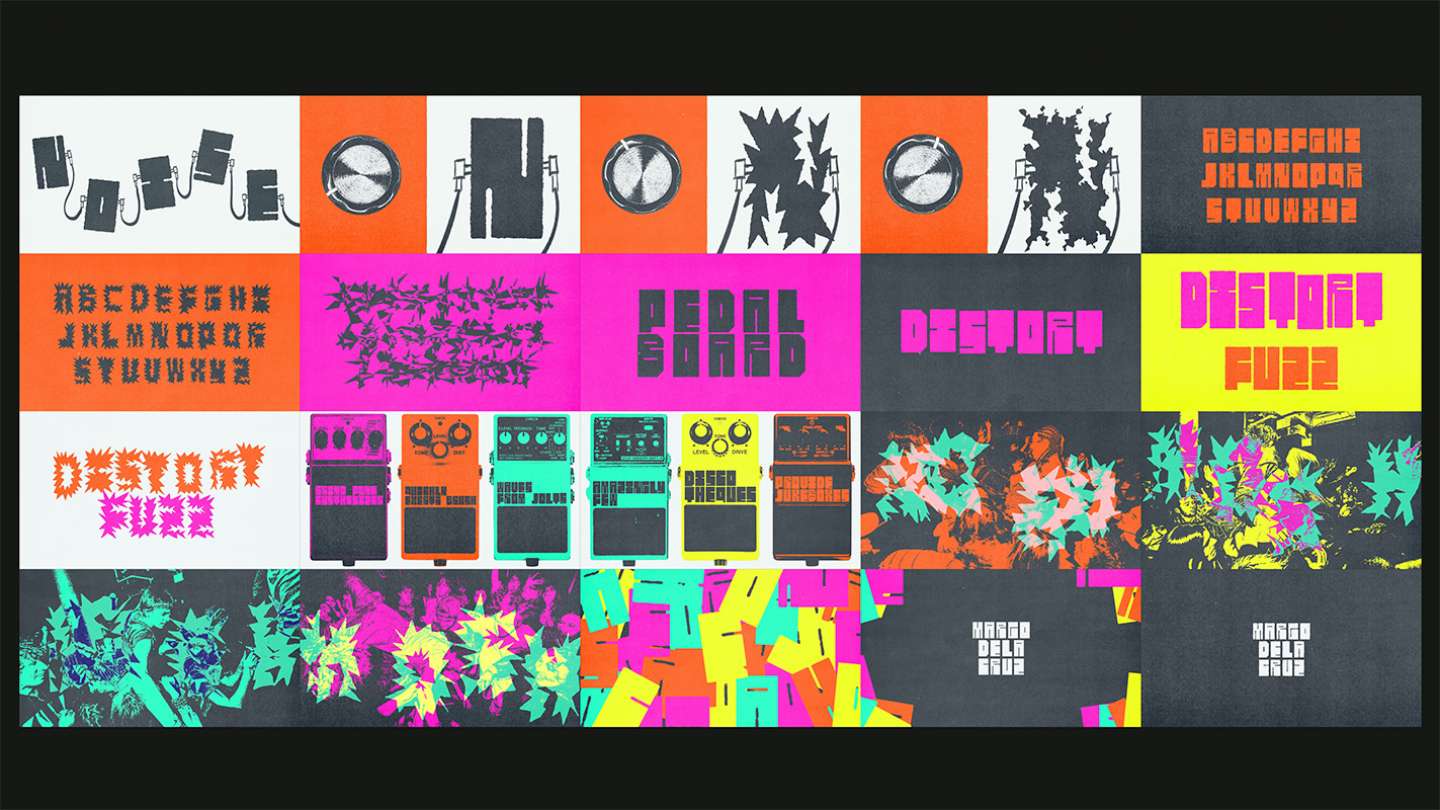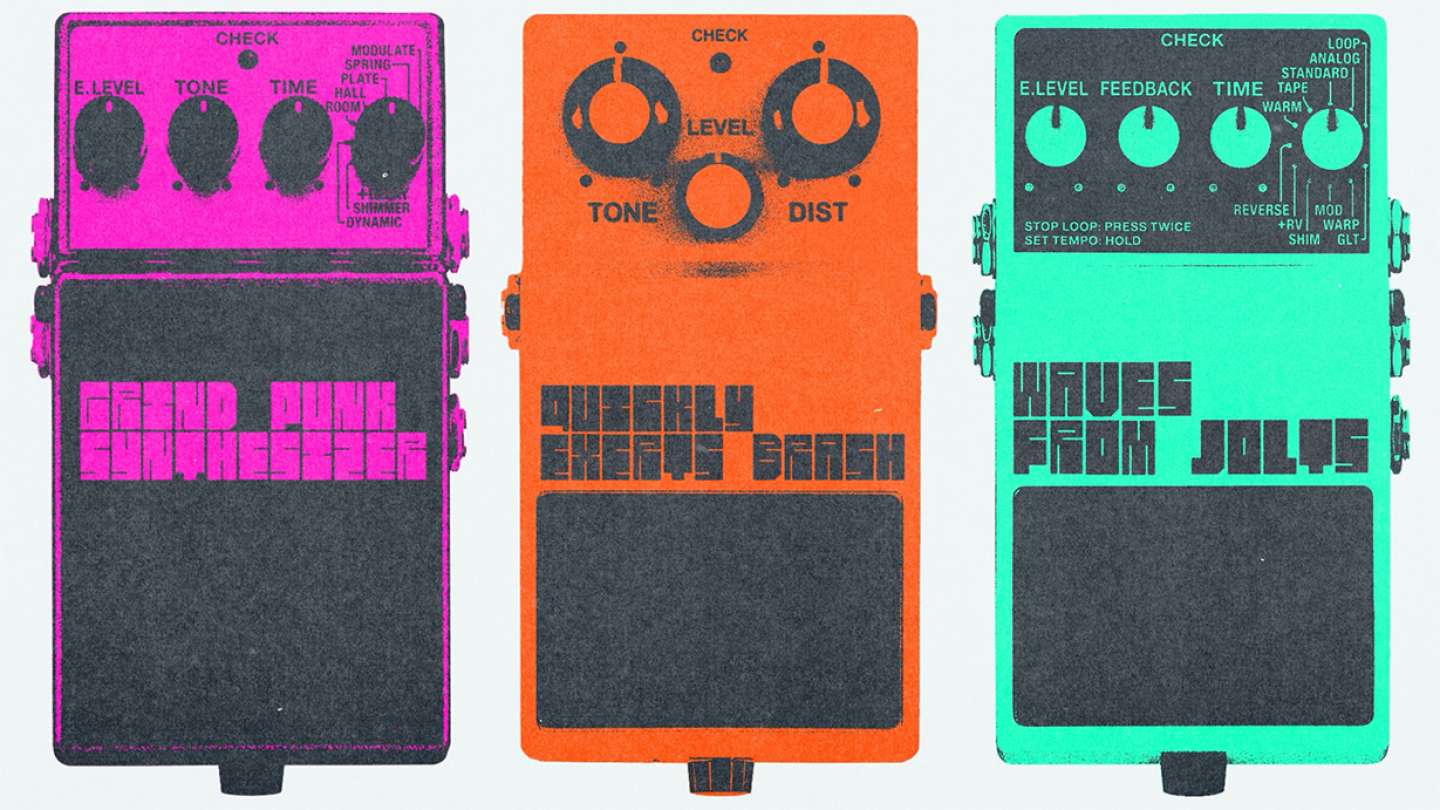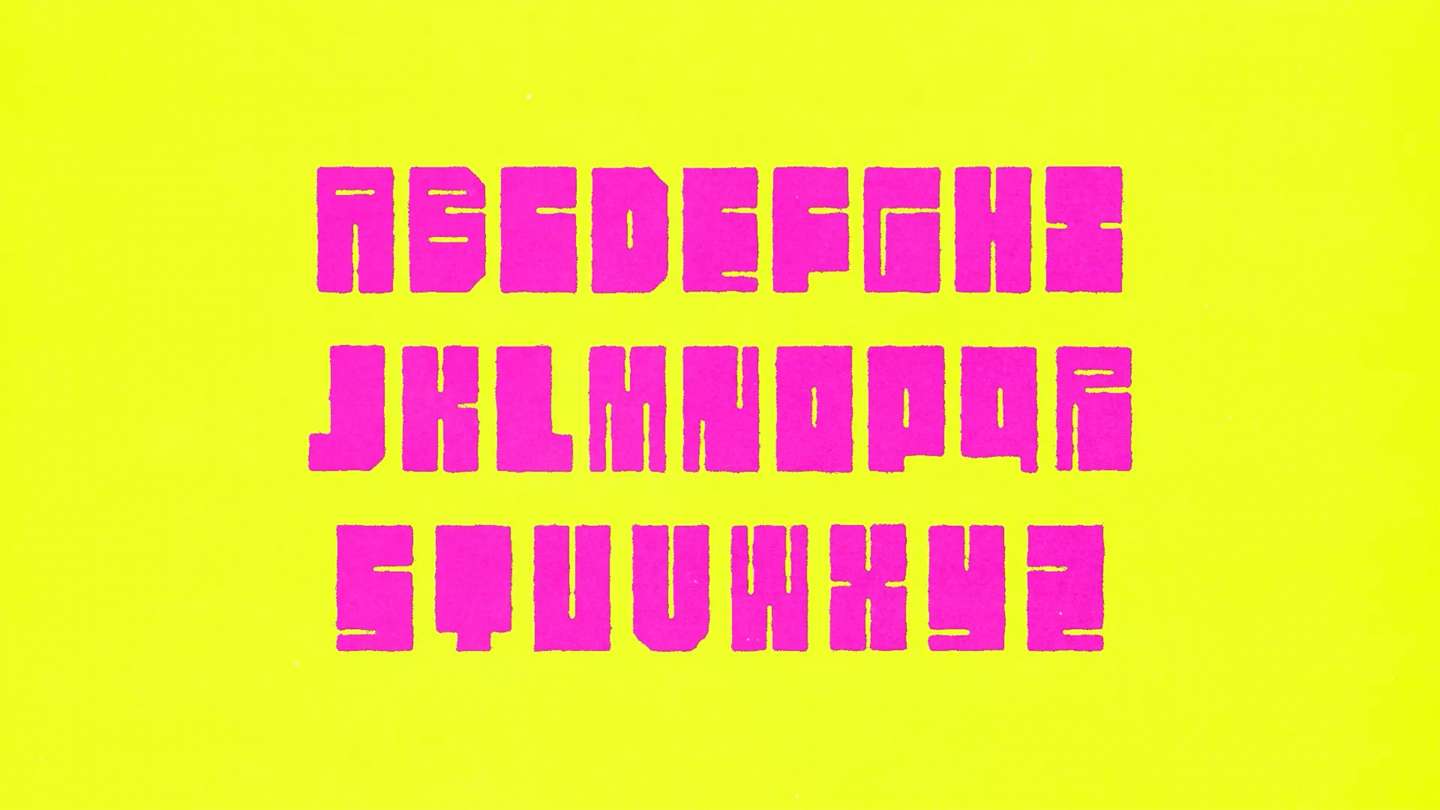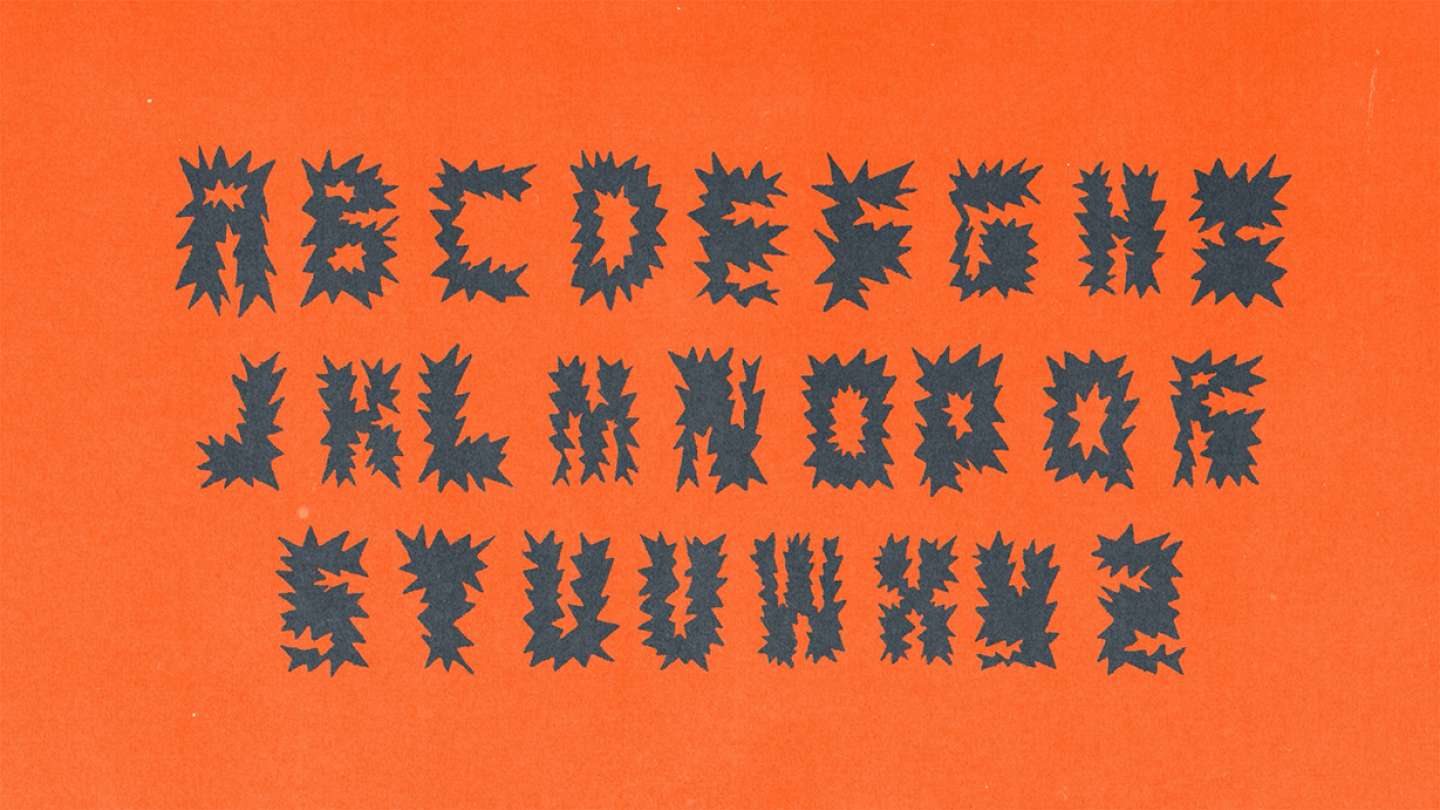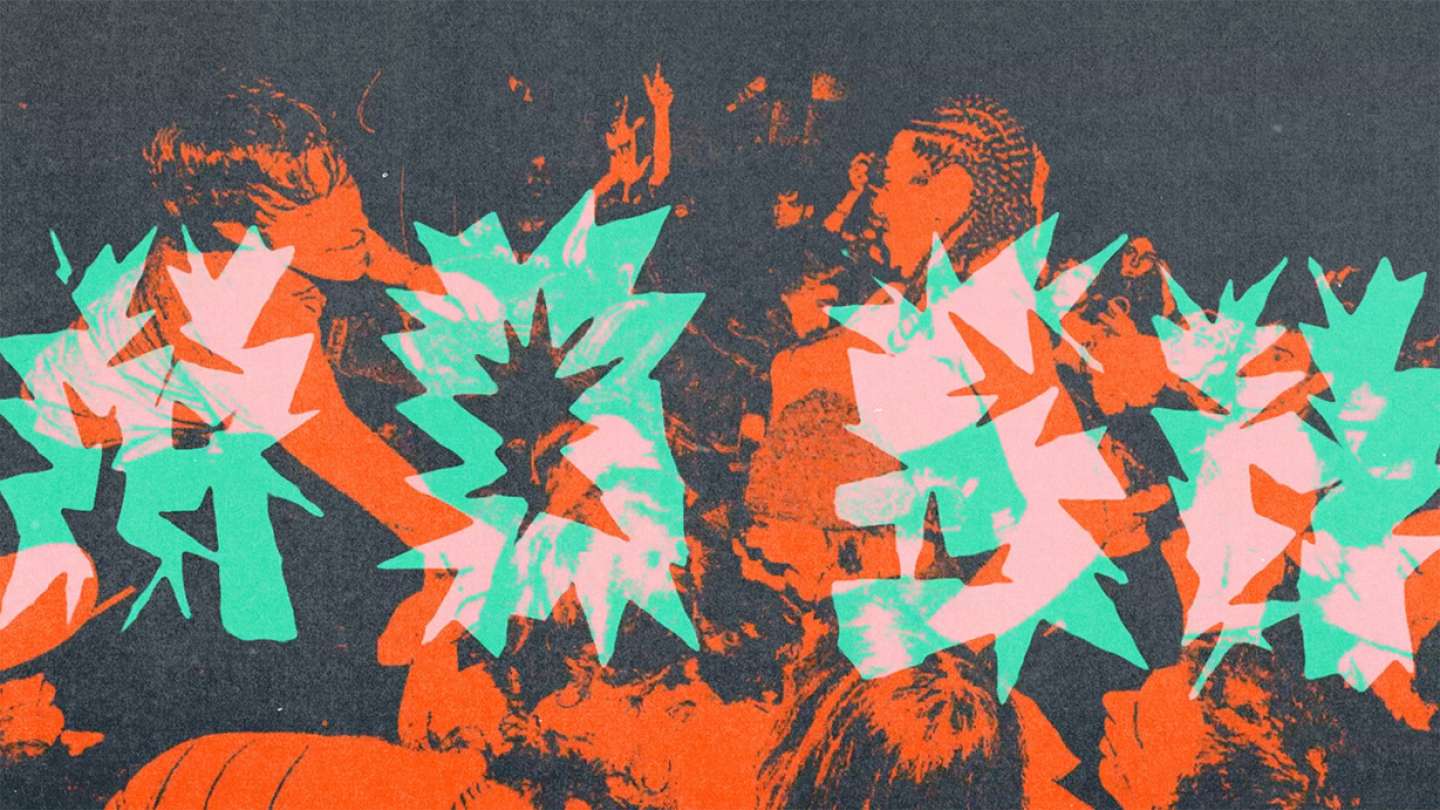
PEDALBOARD reimagines the form of a guitar effects pedal into a motion typeface that expresses sound visually. Within this typeface, the STANDBY font takes on the iconic rectangular shape of a pedal, waiting to be activated. STANDBY transforms into FUZZ, distorting the sleek form into a cacophony of spikes. PEDALBOARD acts as a catalyst for action, shifting from static to dynamic, bringing visuals and sound in harmony.